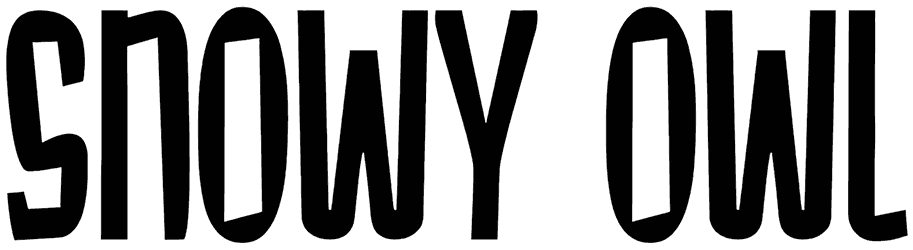
Snowy Owl Font
Take your writing out of a dull mood and refresh it with Snowy Owl. With a spirited and funny vibe, this cartoon font contains some lowercase and most uppercase and, moreover, doesn’t have numerals. Snowy Owl is one of the best choices for showing kids’ designs, festival posters, game screens, or other designs with happy themes. Just start playing with this font and be pleasing.